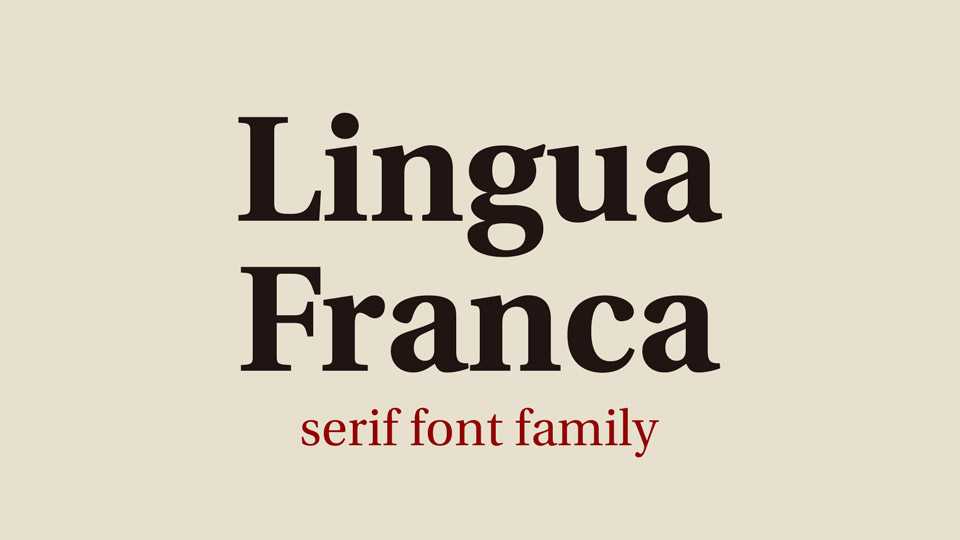
Download Lingua Franca typeface, a serif font family in two weights with Italics based on the Heuristica. Lingua Franca supports various typographic features such as ligatures, proportional figures, etc.
Designer: Andreas Nolda